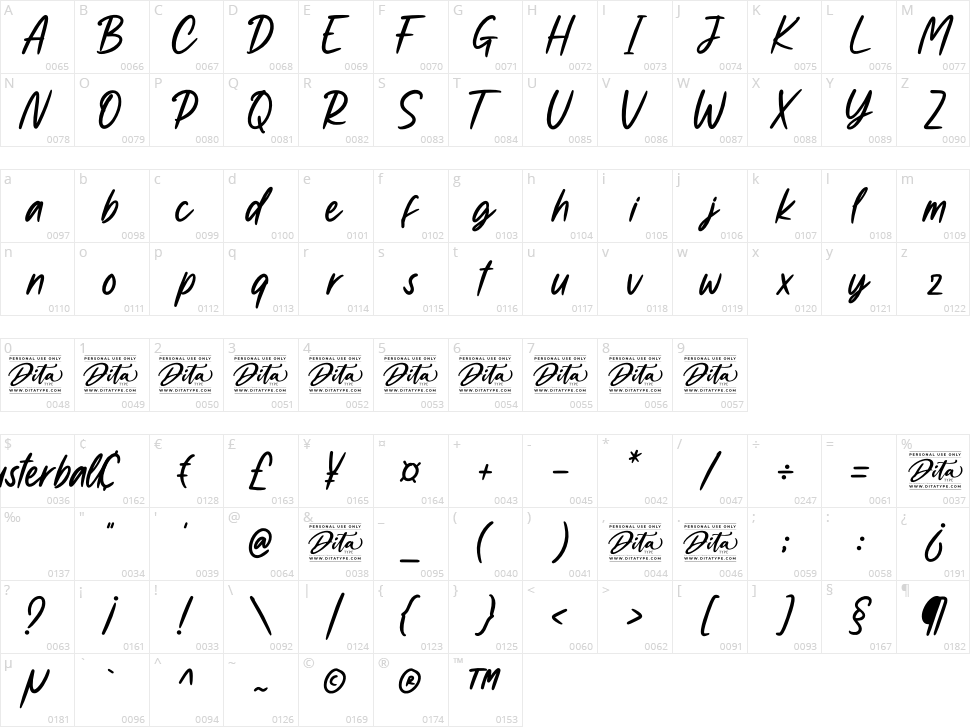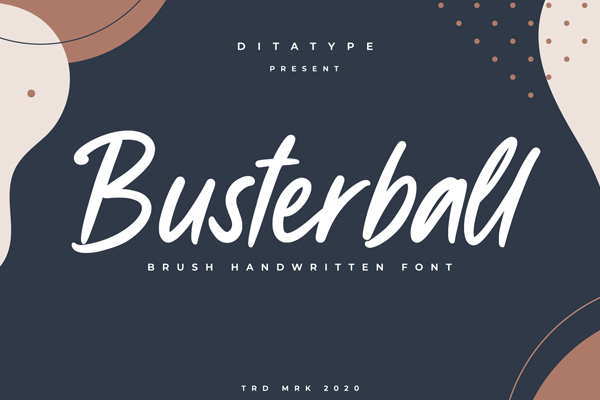
Busterball is a classy script font. Made for any professional project branding. It is the best for logos, branding and quotes. Every letter has a unique and beautiful touch.